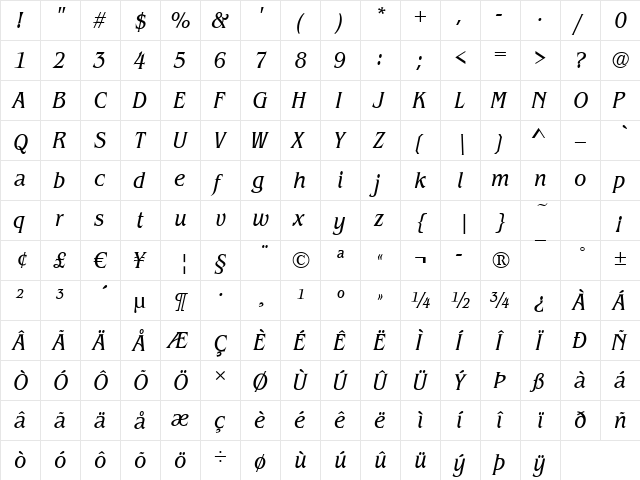
Benjamin-Cd Italic
Design Context for Benjamin-Cd Typeface
Benjamin-Cd is a composed and adaptable typeface that performs quietly and consistently across a wide range of design contexts. The dynamic lean of this cut emphasises speed and emphasis in any layout.
Pro Tip: Use Benjamin-Cd for emphasis, pull quotes, and subheadings where its slanted energy can add rhythm to the layout.